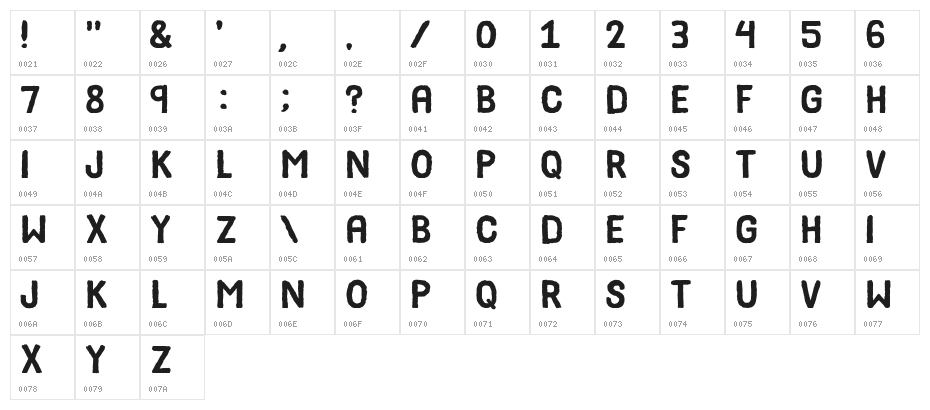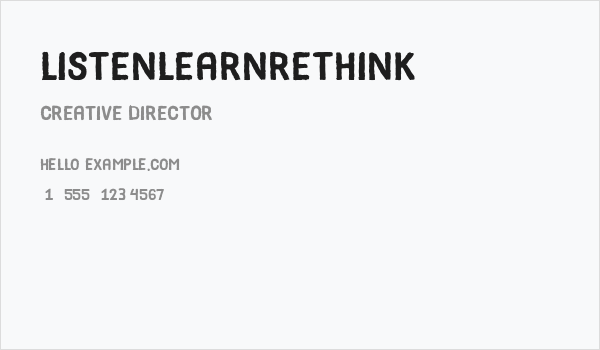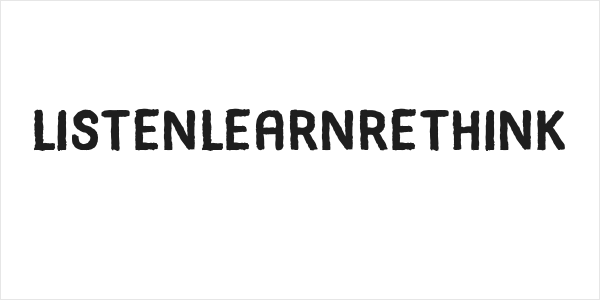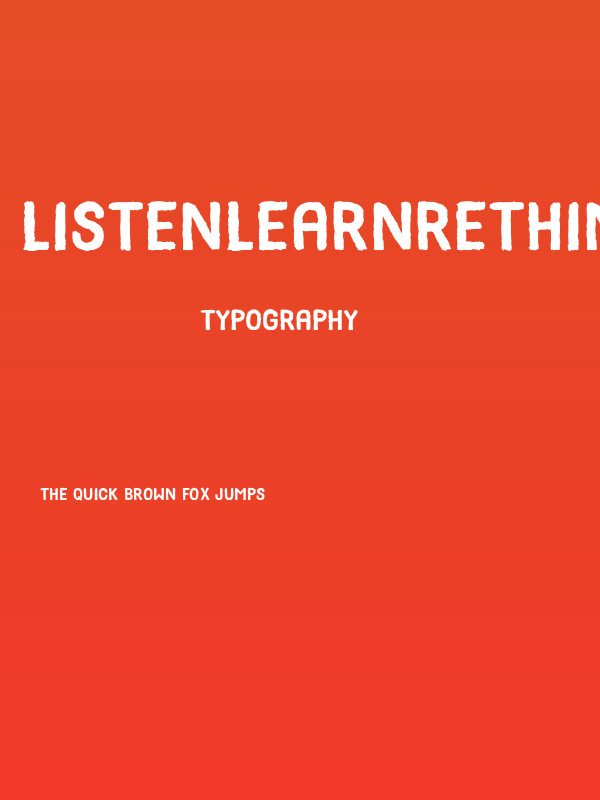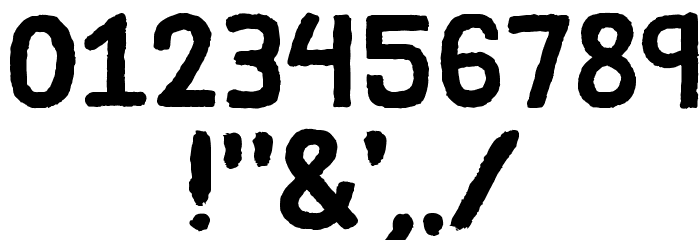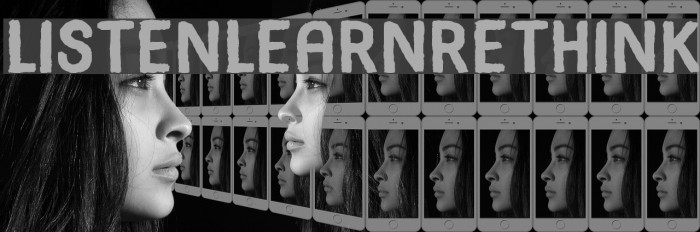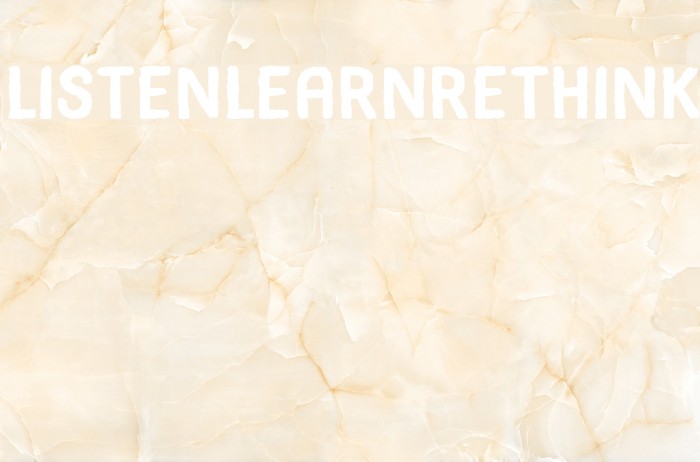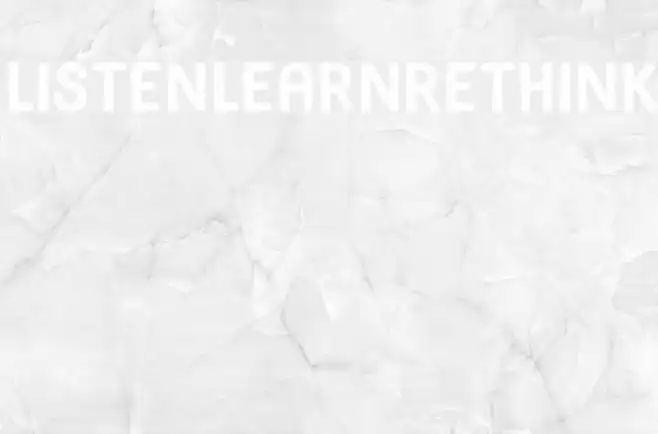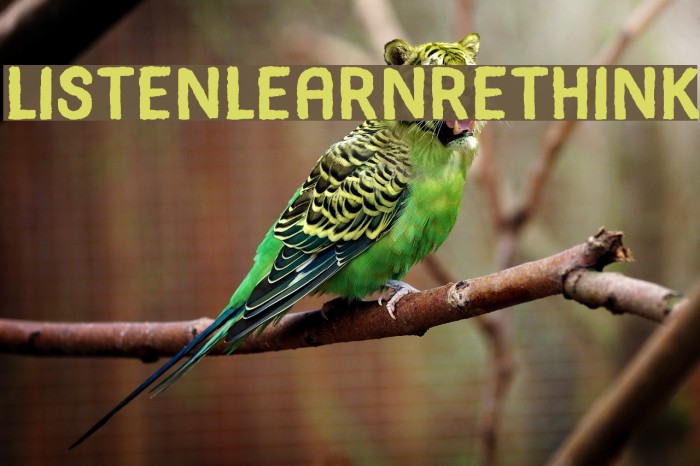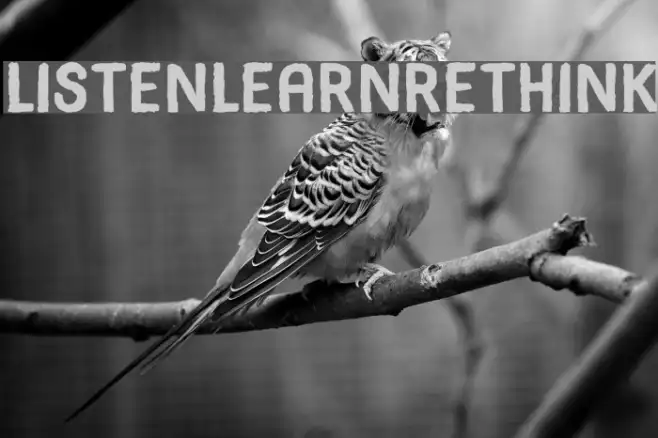
ListenLearnRethink Font
ListenLearnRethink Description
This font features a bold and slightly rough texture, giving it a hand-drawn appearance. The characters are uppercase and maintain a consistent height, with rounded edges that soften the overall look. The numbers and special characters follow the same style, ensuring uniformity across all glyphs. The font's boldness and unique texture make it stand out, while its clear legibility ensures it remains functional. Its playful yet robust design is ideal for projects that require a touch of personality and creativity.
| Proposed Projects | Ideal for posters, branding, children's books, and creative projects that require a playful yet bold typeface. |